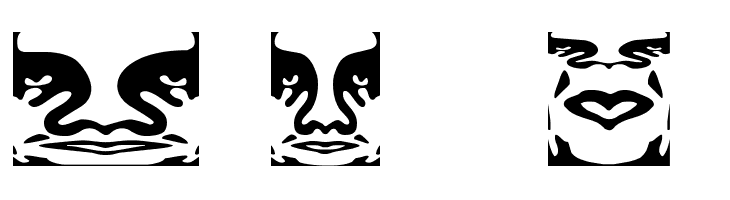
• FrazettaBats2
A pictorial dingbat set featuring dramatic fantasy illustrations.
• ObeyAssortyCaps
The image contains decorative graphics, not a standard font.
• BewarethefriendlystrangerNorml
A bold, impactful font ideal for urgent and authoritative messages.
• FrazettaBats Test1
• ObeyPearsCaps
The image contains graphic designs, not a valid font.
• Jessica's Softball Font
A collection of softball-themed graphics and icons.
• CatBats
A decorative font with intricate cat and bat illustrations within each character.
• ObeyXL1Caps
A graphic, poster-inspired decorative font made of illustrated character blocks.
• ObeyFunhouseCaps
A bold, decorative font with intricate patterns and abstract shapes.
• ObeyPotpourriCaps
A graphic, street-art-inspired decorative display set of illustrated icons.